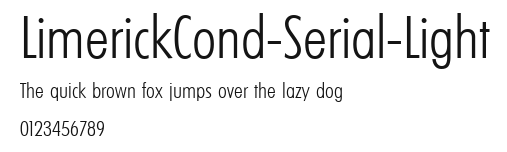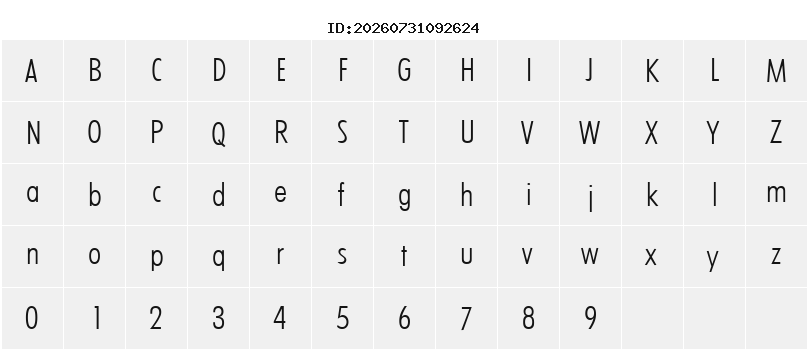
LimerickCond-Serial-Light Preview
About LimerickCond-Serial-Light.ttf
LimerickCond-Serial-Light.ttf is a modern, elegant sans-serif font designed for ultimate readability and visual harmony. Perfect for branding, headlines, web design, and print materials.